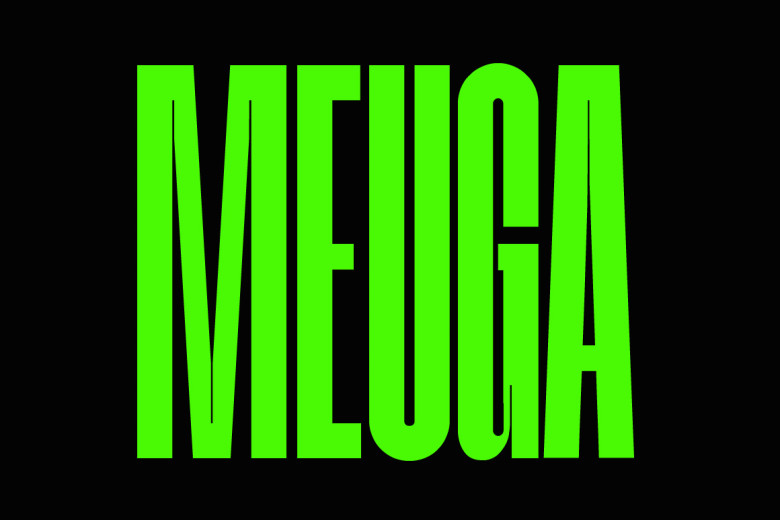
Meuga Font
Do you need a fresh, clean looking typeface to add style and élan to your designs? Introducing Meuga, our sleek modern condensed sans-serif font that falls halfway between windscreen and desktop: Made after hours of listening to music livestreamed above multiple seas, Meuga is designed for anything but the norm. It is a condensed sans-serif typeface family that offers a minimalist design with its narrow width and tidy lines, perfect for any branding or design project.
This condensed sans-serif typeface is perfect for anyone looking for a clean, modern appearance and sophisticated flavor. Put a modern spin on your design with our condensed sans serif type family which is great for headlines and titles in digital and printed design alike.
This font is perfect for headings and titles, digital advertisements, brochure and flyer design, infographics and data visualization tools and graphs, navigation menus plus labels, and web designs. Also included are logotypes for T-Shirt print and many more uses.
Meuga Sans Serif Font